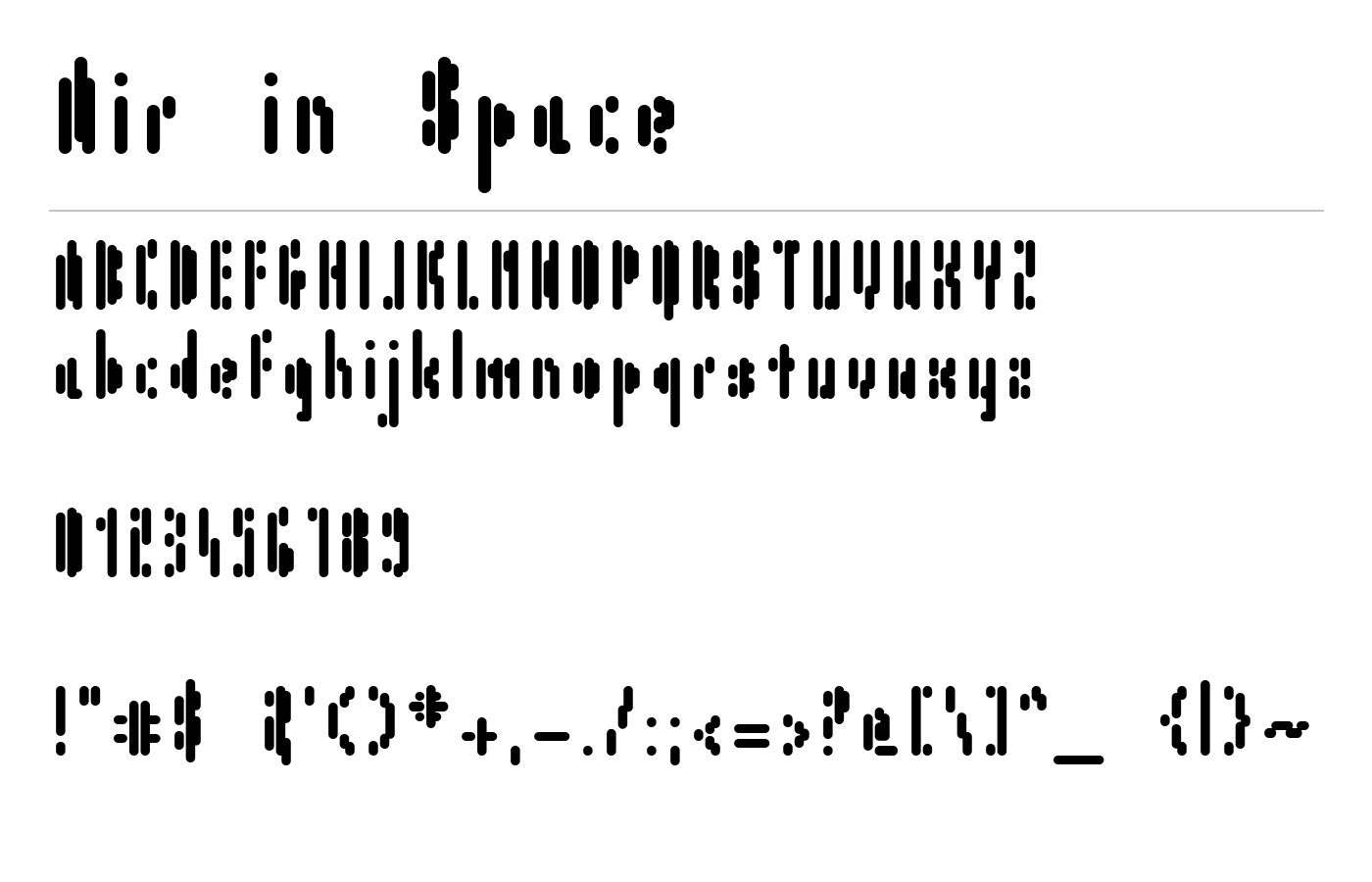
Air in Space is a futuristic, sans serif display font characterized by its tall, condensed letterforms composed of rounded vertical bars that create a modular, almost digital effect. Its uniform stroke weight and high x-height give it a modern, technical feel perfect for sci-fi themes, tech branding, or avant-garde design projects. This font shines in headlines, logos, or any creative work seeking a distinctive, space-age aesthetic with an innovative, geometric personality.
Air in Space Font
About Air in Space Font
| Font family | Air in Space Font |
| Designer | Roland Huse |